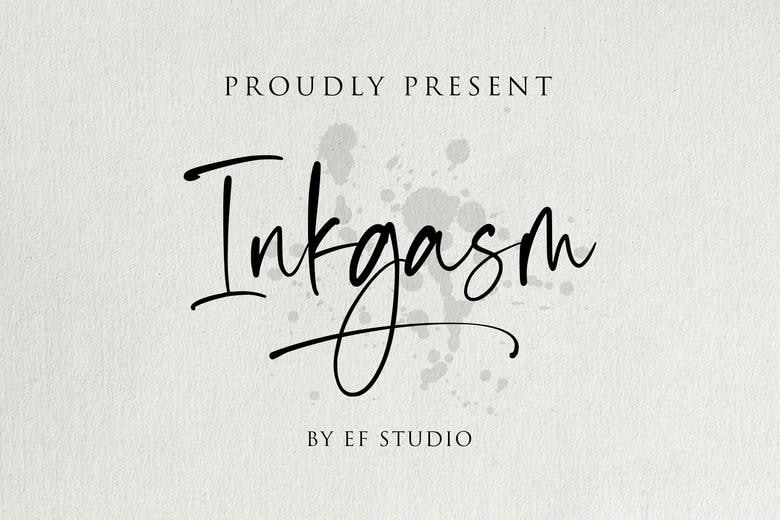
Inkgasm Font
Inkgasm is a beautiful and classical handwritten typeface. It is most suitable in the development of eye catching logos, branding and quotes. A very special and beautiful touch is applied to every letter, and will bring your design to life!
Inkgasm Handwritten Script Font